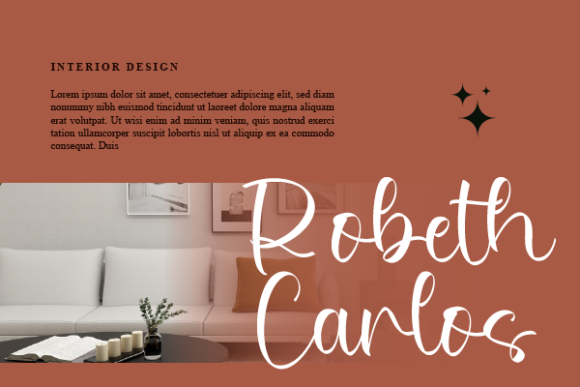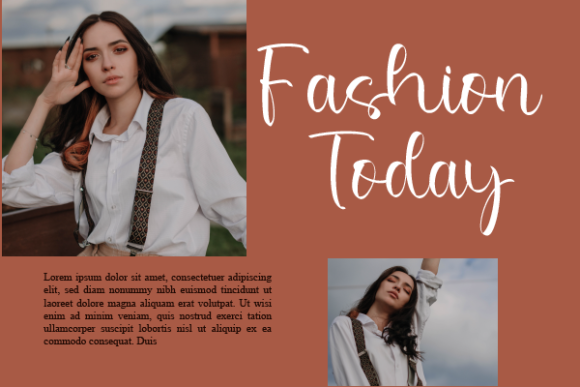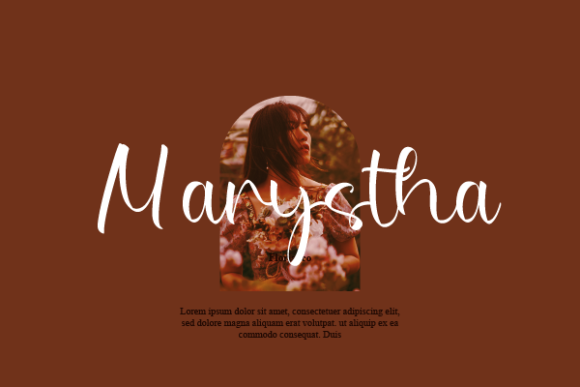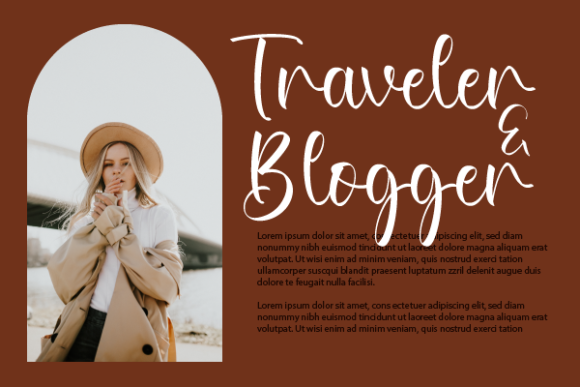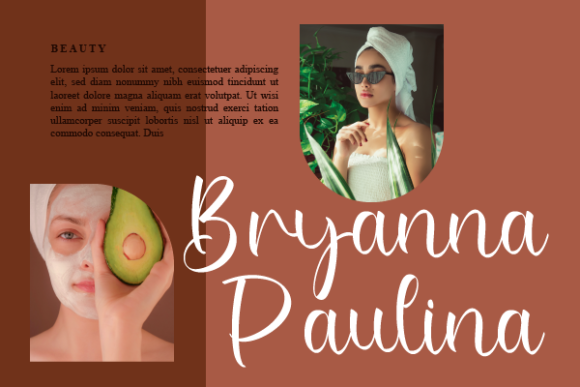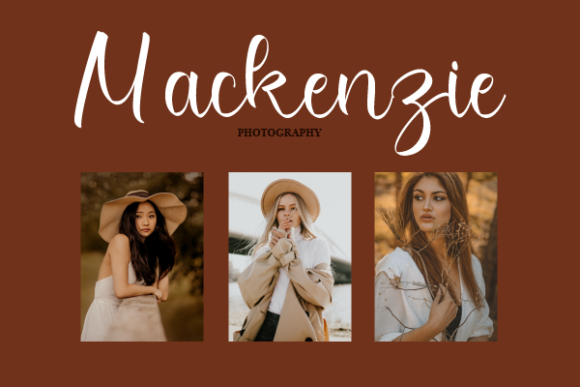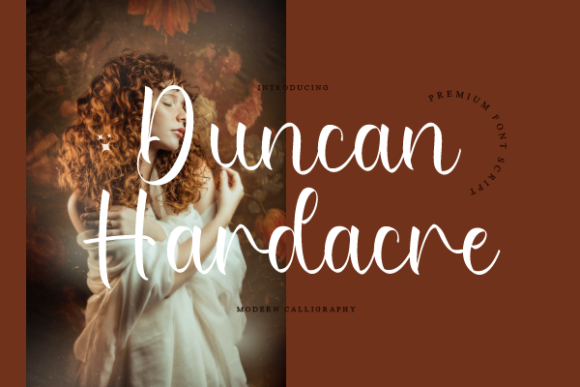
Duncan Hardacre Font: Elevate Your Designs with Elegance and Sophistication
In the world of typography, fonts play a crucial role in conveying the tone and personality of a brand. For designers and crafters seeking a delicate and fashionable script font, Duncan Hardacre is an exceptional choice. This beautiful font is perfect for a wide range of branding projects, including logos, t-shirt printing, creative products, and more. With its elegant and sophisticated design, Duncan Hardacre is sure to make your designs stand out in various contexts.
The Characteristics of Duncan Hardacre Font
Duncan Hardacre font is a script typeface that boasts a unique and refined aesthetic. Its delicate strokes and flowing connections make it an ideal choice for designs that require a touch of elegance and sophistication. The font’s classic and timeless look ensures that it will remain relevant for years to come, making it a valuable addition to any designer’s font collection.
Perfect for Branding Projects
Whether you’re working on a logo design, t-shirt printing, or creating unique products, Duncan Hardacre font is an excellent choice. Its versatility and adaptability make it suitable for a wide range of applications, from business cards to billboards. The font’s delicate and fashionable design ensures that your brand will stand out from the competition and leave a lasting impression on your target audience.
Why Choose Duncan Hardacre Font?
There are several reasons why designers and crafters should consider Duncan Hardacre font for their projects:
- Elegance and Sophistication: The font’s delicate and refined design adds a touch of elegance and sophistication to any project.
- Versatility: Duncan Hardacre font is suitable for a wide range of applications, from logos and t-shirt printing to creative products and more.
- Timeless Appeal: The font’s classic design ensures that it will remain relevant for years to come, making it a valuable addition to any designer’s font collection.
- Easy to Read: Despite its delicate design, Duncan Hardacre font is easy to read, making it perfect for body text and headlines.
Tips for Using Duncan Hardacre Font
To get the most out of Duncan Hardacre font, consider the following tips:
- Pair with Bold Fonts: Pair Duncan Hardacre font with bold and sans-serif fonts to create a striking contrast and add visual interest to your design.
- Use for Headlines and Titles: The font’s elegant design makes it perfect for headlines and titles, adding a touch of sophistication to your design.
- Experiment with Colors: Duncan Hardacre font looks great in a variety of colors, so don’t be afraid to experiment and find the perfect hue for your design.
Duncan Hardacre font is a beautiful and elegant script font that is perfect for designers and crafters seeking to add a touch of sophistication to their projects. Its delicate and fashionable design makes it suitable for a wide range of branding projects, from logos and t-shirt printing to creative products and more. With its timeless appeal and versatility, Duncan Hardacre font is an excellent addition to any designer’s font collection.